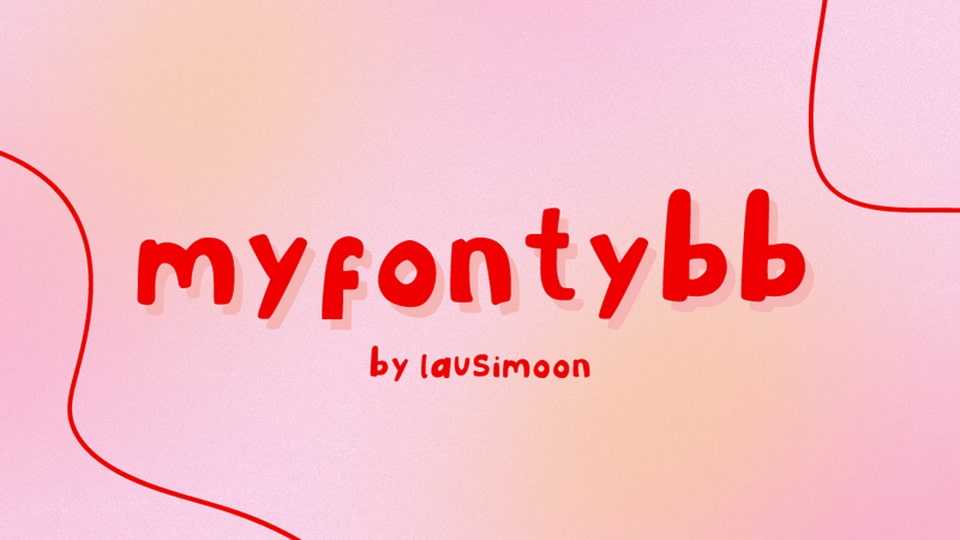
Download Myfontybb font, a lovely and cute hand lettered typeface based on personal handwriting. Use Myfontybb font for eye catching cartoon captions, in posters of anywhere else a casual impact is required.
Designer: Laura López